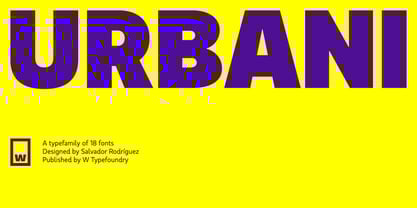
Urbani Font
Urbani Font is perfect for various design applications including modern city branding, urban lifestyle magazines, contemporary streetwear labels, metropolitan transit signage, architectural firm presentations, cosmopolitan restaurant menus, urban development projects, city tourism campaigns, modern apartment complex materials, and progressive municipal communications. This sophisticated typeface excels in projects requiring metropolitan energy and contemporary urban appeal that captures the dynamic pulse and cultural diversity of modern city living.
What makes Urbani Font so exciting is its masterful embodiment of contemporary urban sophistication and metropolitan energy through letterforms that reflect the rhythm, diversity, and innovative spirit of modern city life. The font features clean geometric construction that mirrors architectural precision, dynamic proportions that suggest urban movement and growth, and contemporary character details that evoke the multicultural vibrancy of cosmopolitan environments. Its distinctive metropolitan character and urban sophistication make it perfect for brands seeking to communicate progress, diversity, and the exciting opportunities that define contemporary city culture.
Urbani Font family includes comprehensive weight options from light to black, along with matching italic styles that provide complete typographic flexibility for complex urban design systems. Each weight maintains the font's signature metropolitan character while offering clear hierarchy options for sophisticated city communications. The family also features extended character sets, urban-inspired ligatures, and contemporary symbols that ensure optimal performance in multicultural metropolitan contexts.
Whether you're developing city brands, urban lifestyle products, or metropolitan communications, Urbani Font Free Download provides contemporary typography that captures the energy and sophistication of modern urban living while celebrating the cultural richness of cosmopolitan environments. This typeface transforms standard communications into dynamic statements that reflect urban innovation and metropolitan sophistication. The font's cosmopolitan appeal makes it particularly effective for city governments, urban development firms, and lifestyle brands targeting metropolitan audiences who appreciate contemporary design and urban culture.
Urbani Font stands out through its intelligent synthesis of urban energy with typographic sophistication that feels both current and enduring. Its carefully balanced proportions and metropolitan-inspired details ensure exceptional performance across all urban communication needs, while its contemporary character adds personality that reflects the diversity and innovation of modern city life. From comprehensive city branding to urban lifestyle campaigns, this font provides designers with tools to create communications that celebrate metropolitan culture and demonstrate sophisticated understanding of contemporary urban design through dynamic, city-inspired typography.